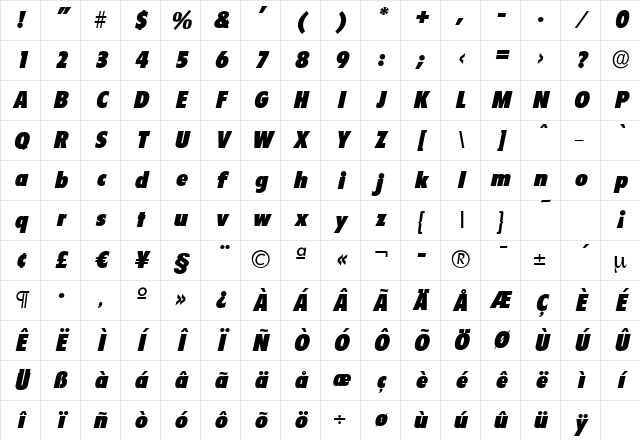
LuisBecker-Black Italic
Design Context for LuisBecker-Black
LuisBecker-Black is a composed and adaptable typeface that performs quietly and consistently across a wide range of design contexts. The slanted form adds forward momentum and visual energy.
Pro Tip: Use LuisBecker-Black for emphasis, pull quotes, and subheadings where its slanted energy can add rhythm to the layout.